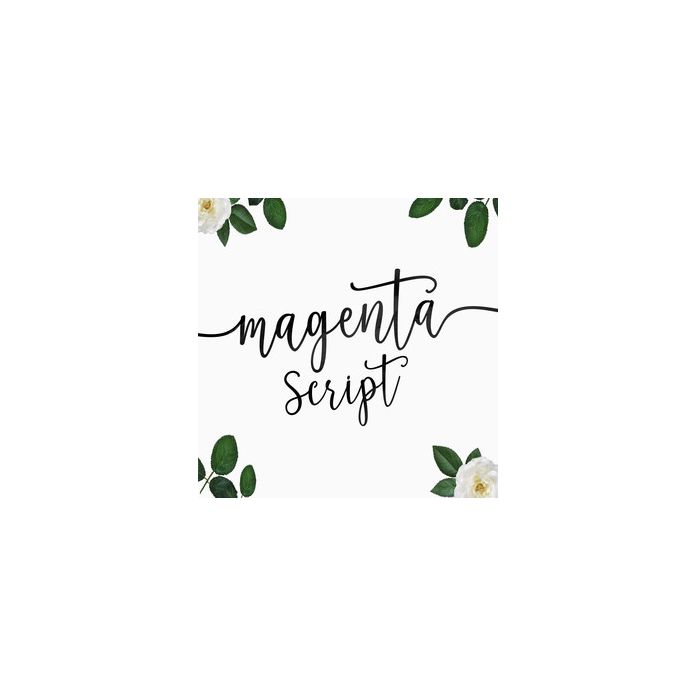
Magenta Script is a font with unique and feminine characters, very suitable for design needs of making cards, invitations, quotations, and other sweet projects you are working on. This font includes 659 glyphs.